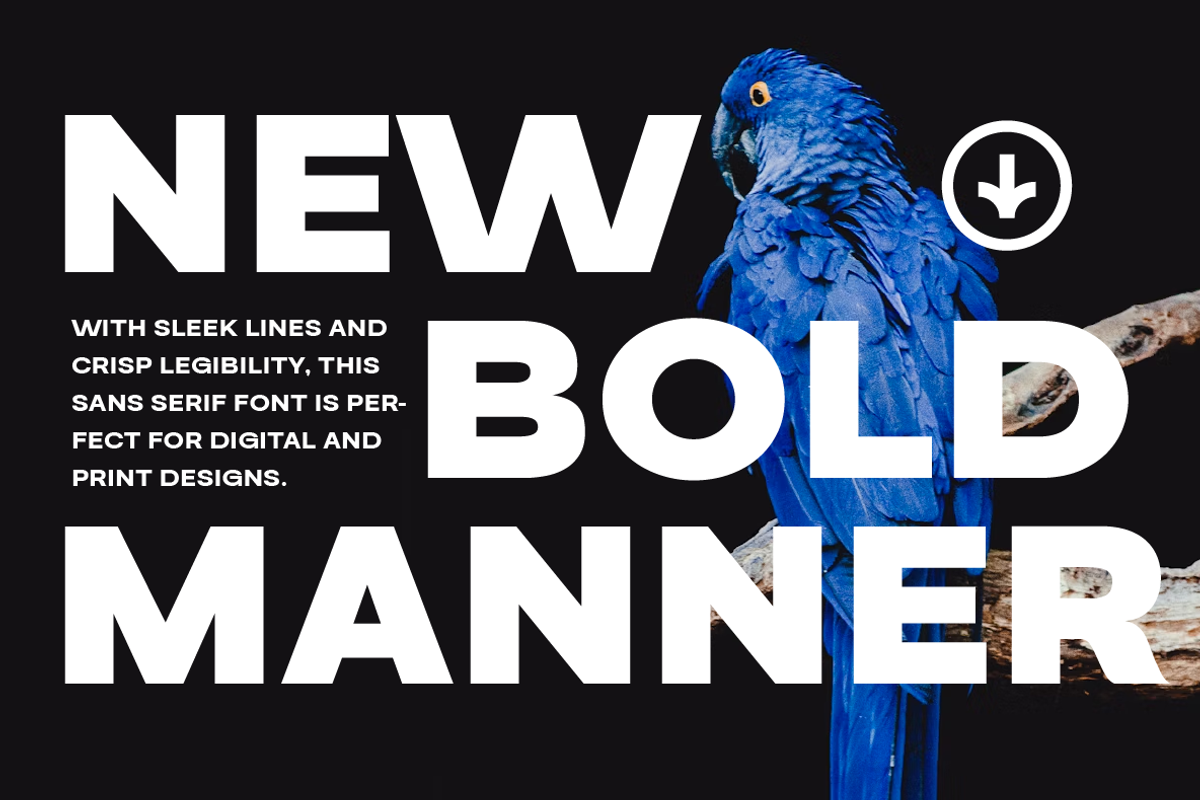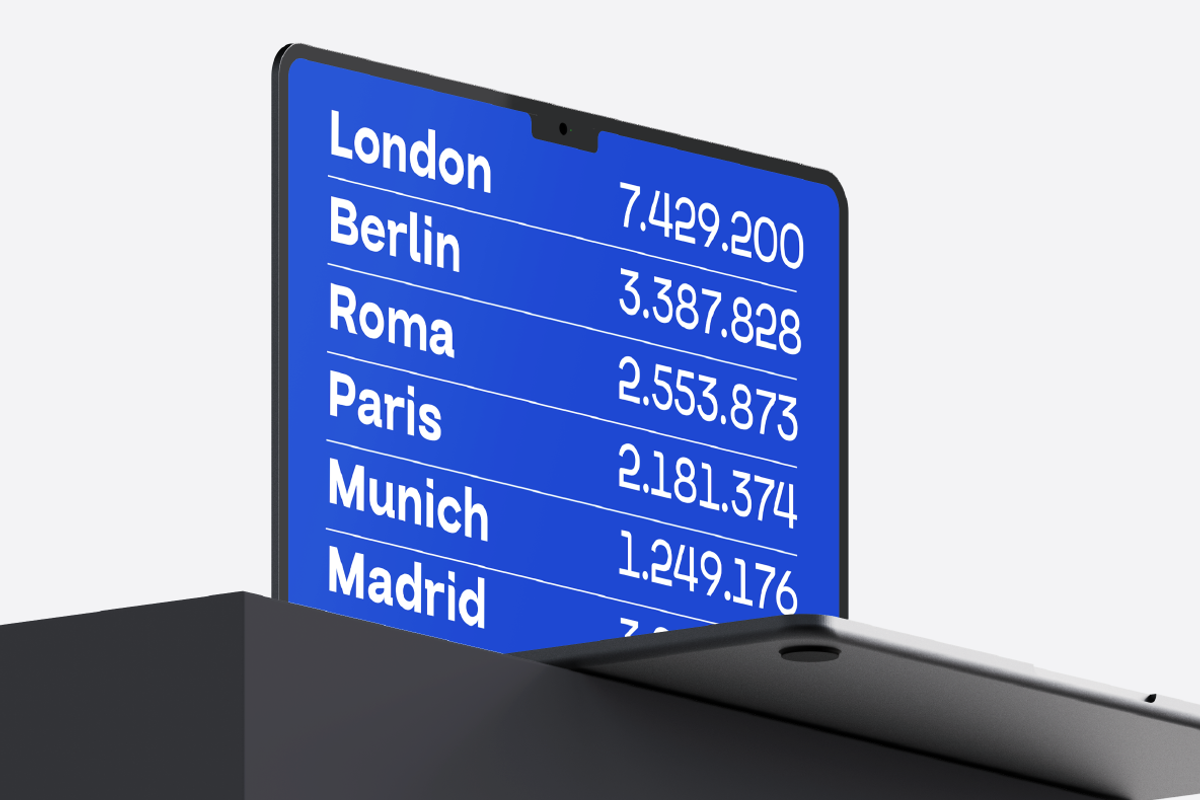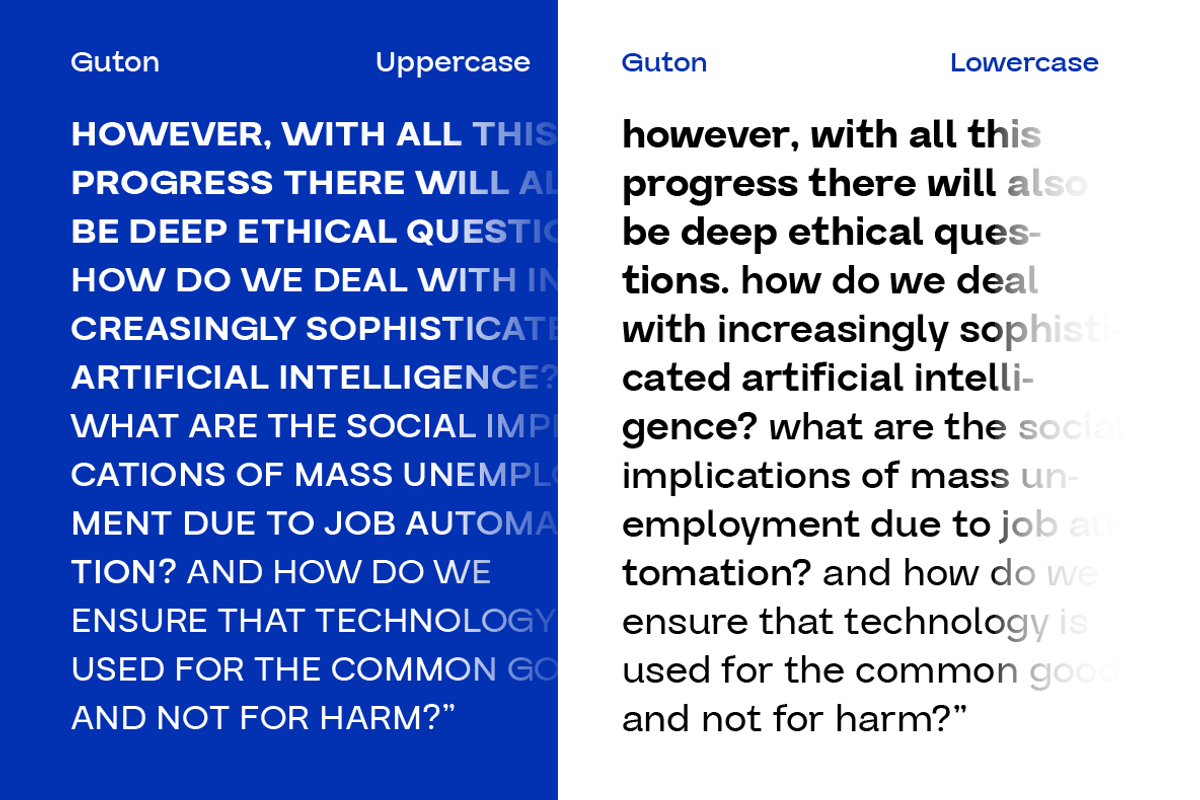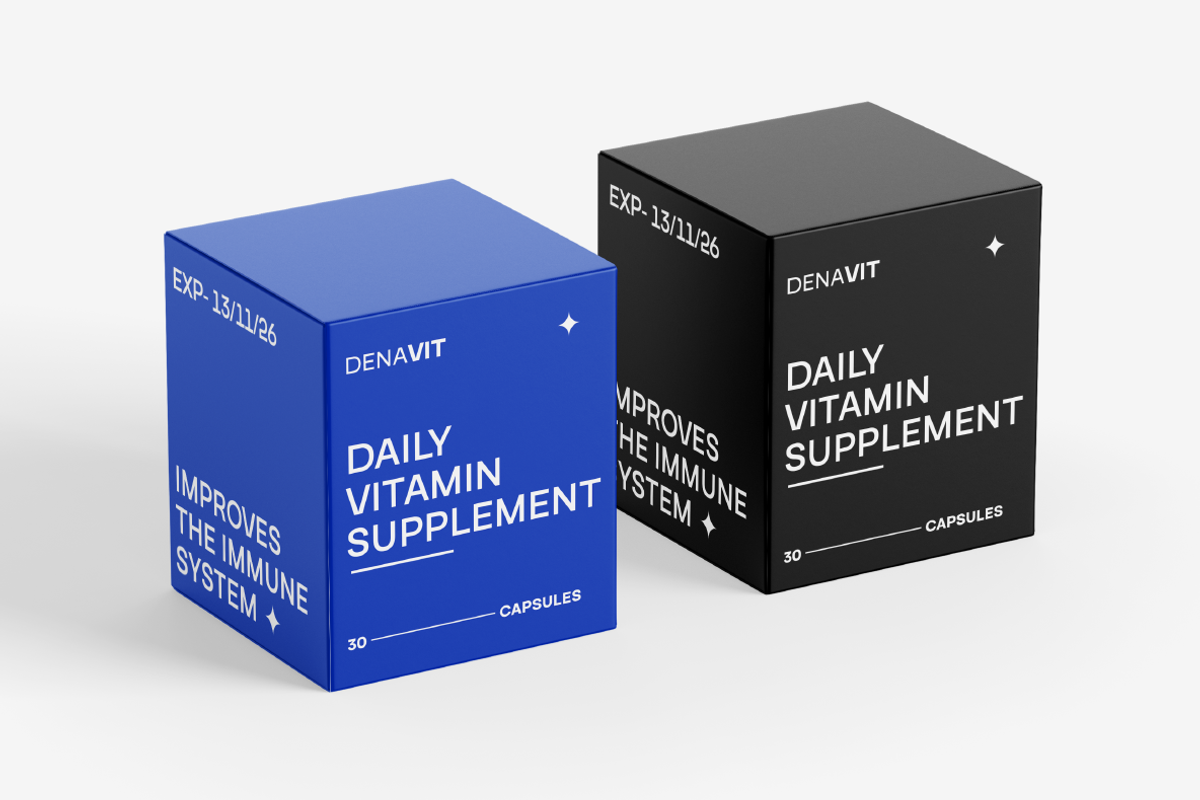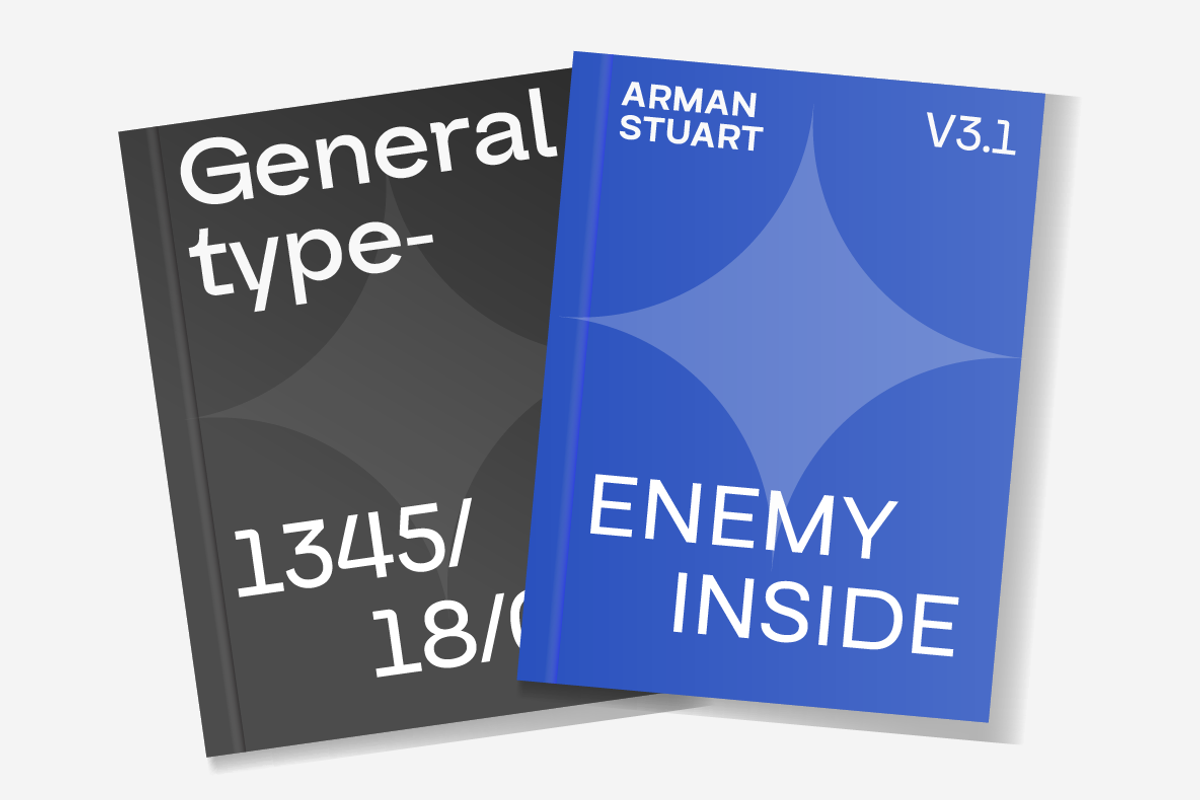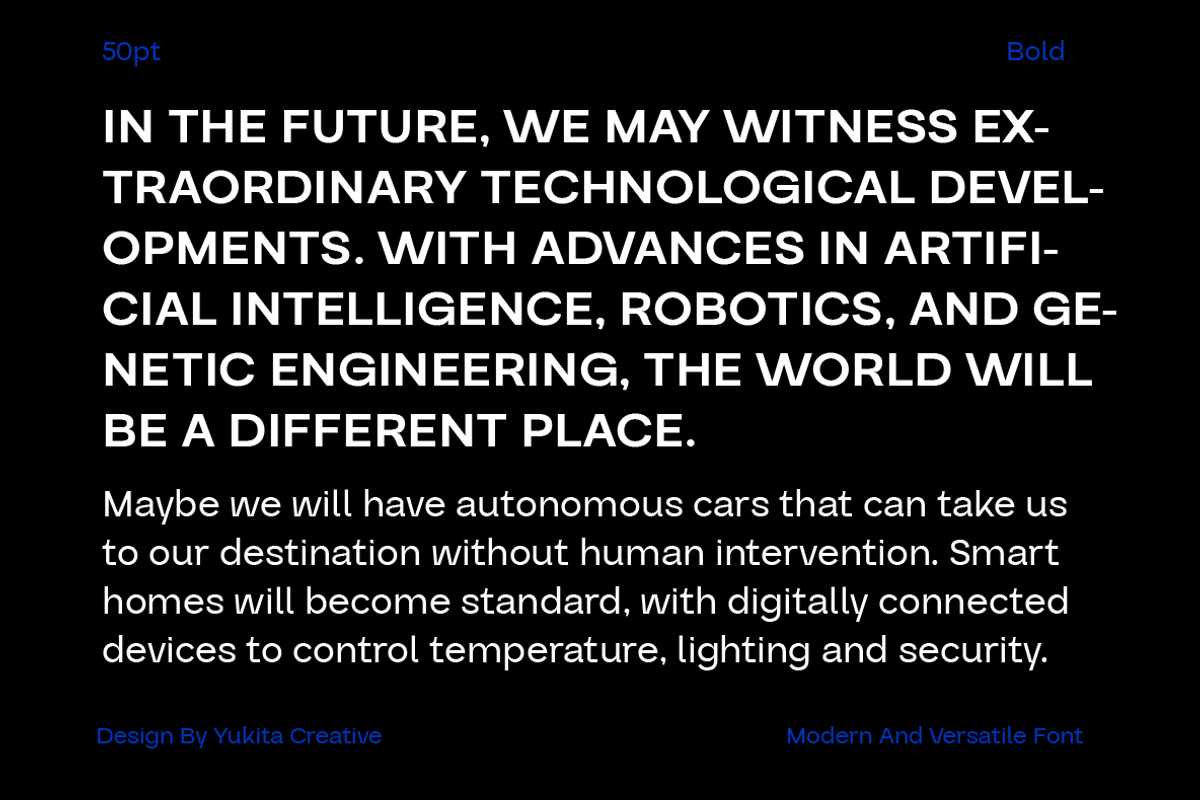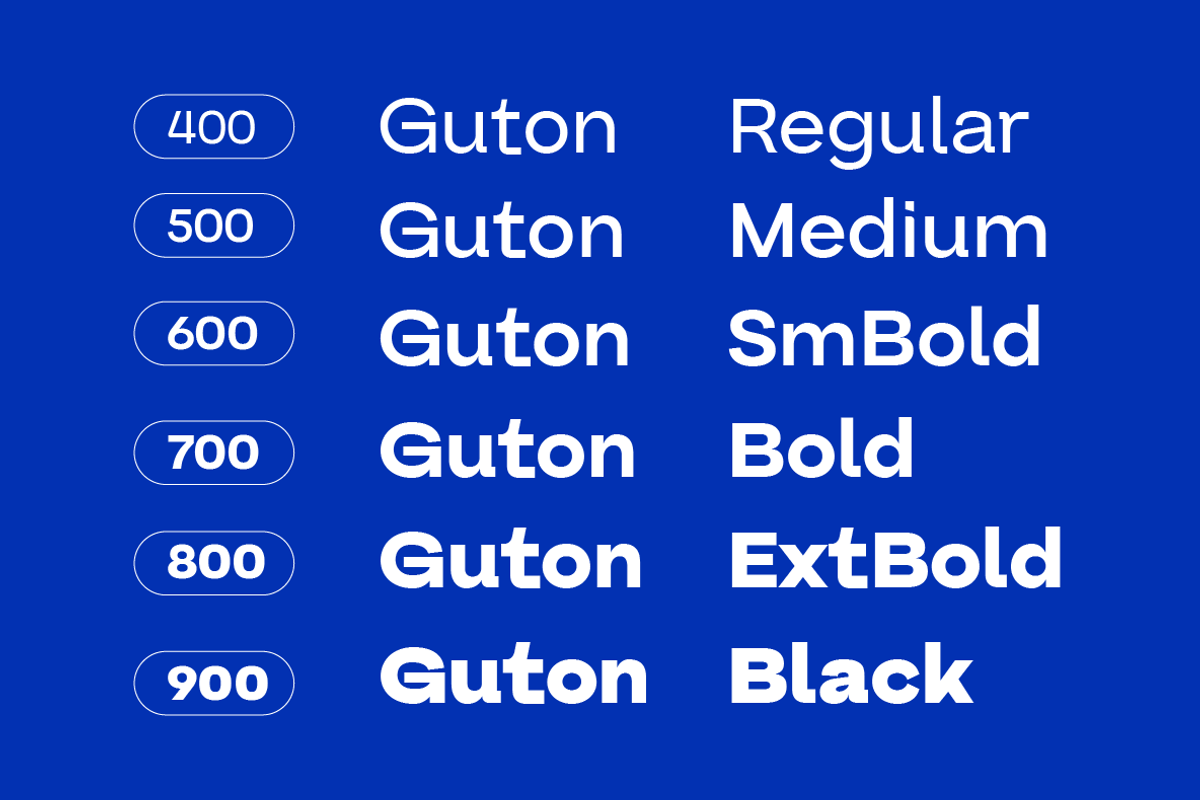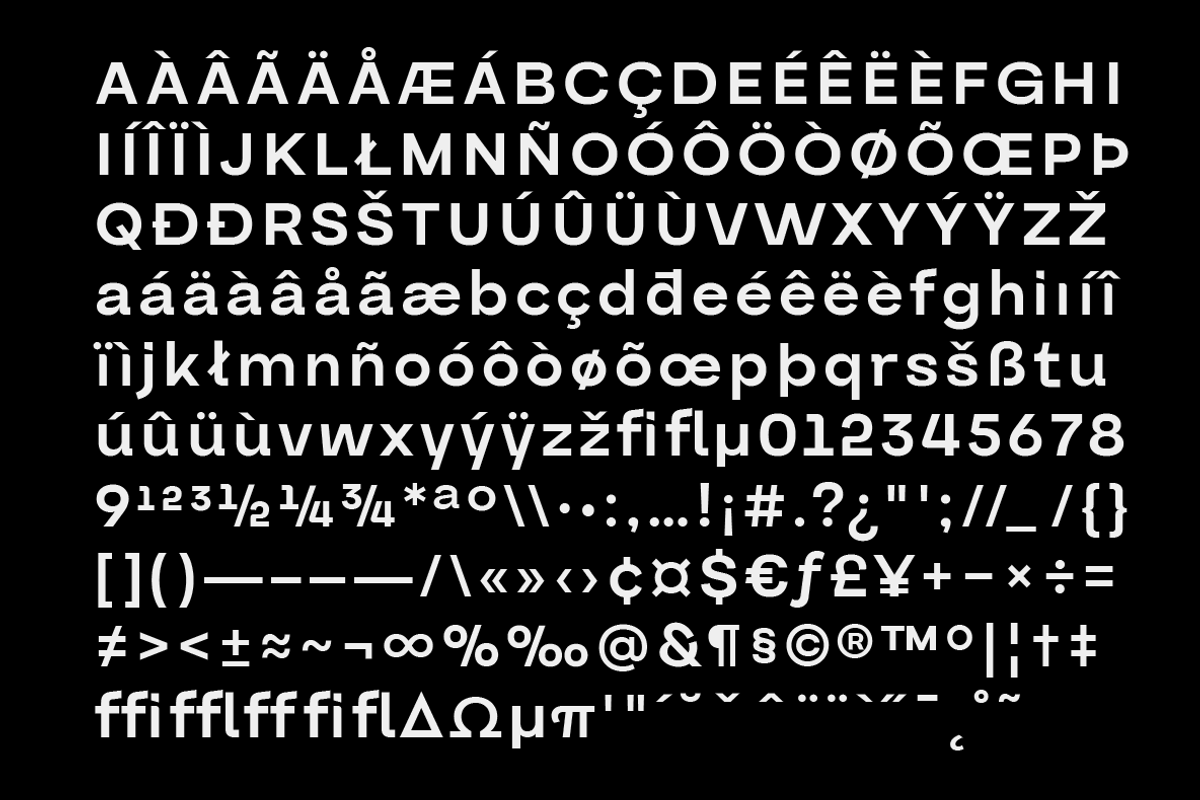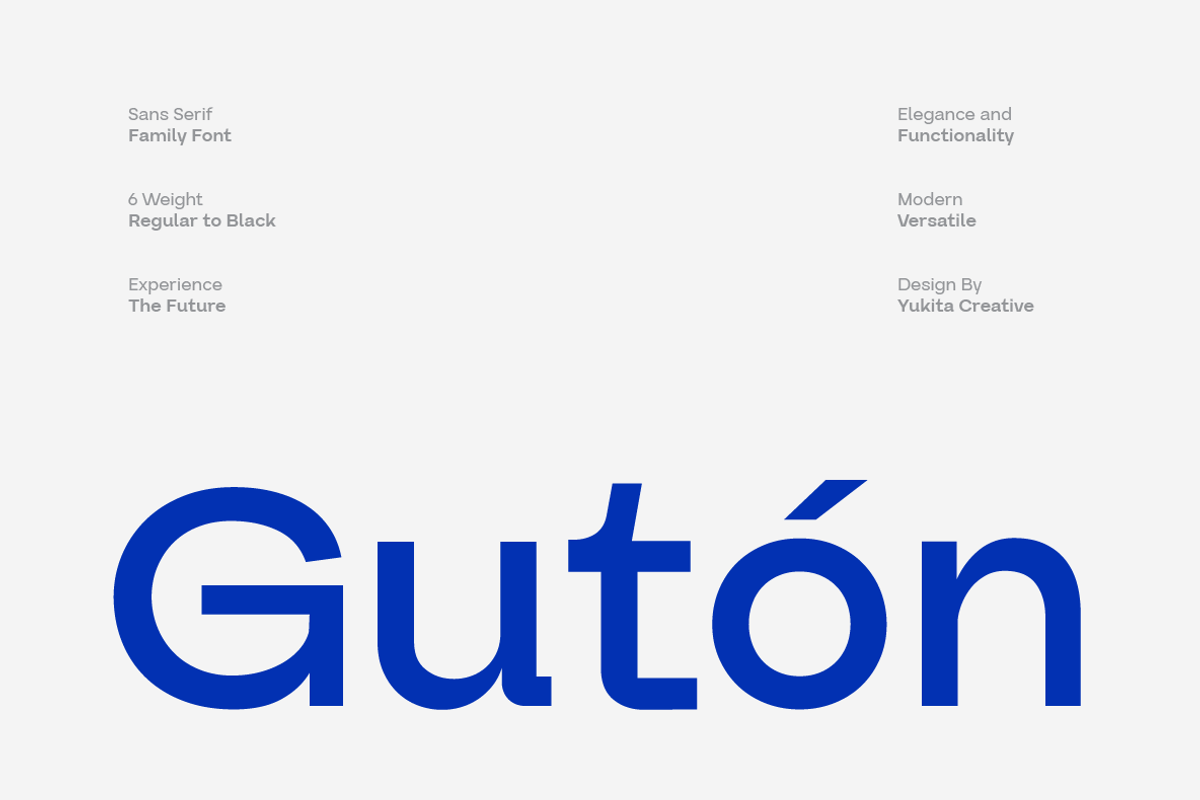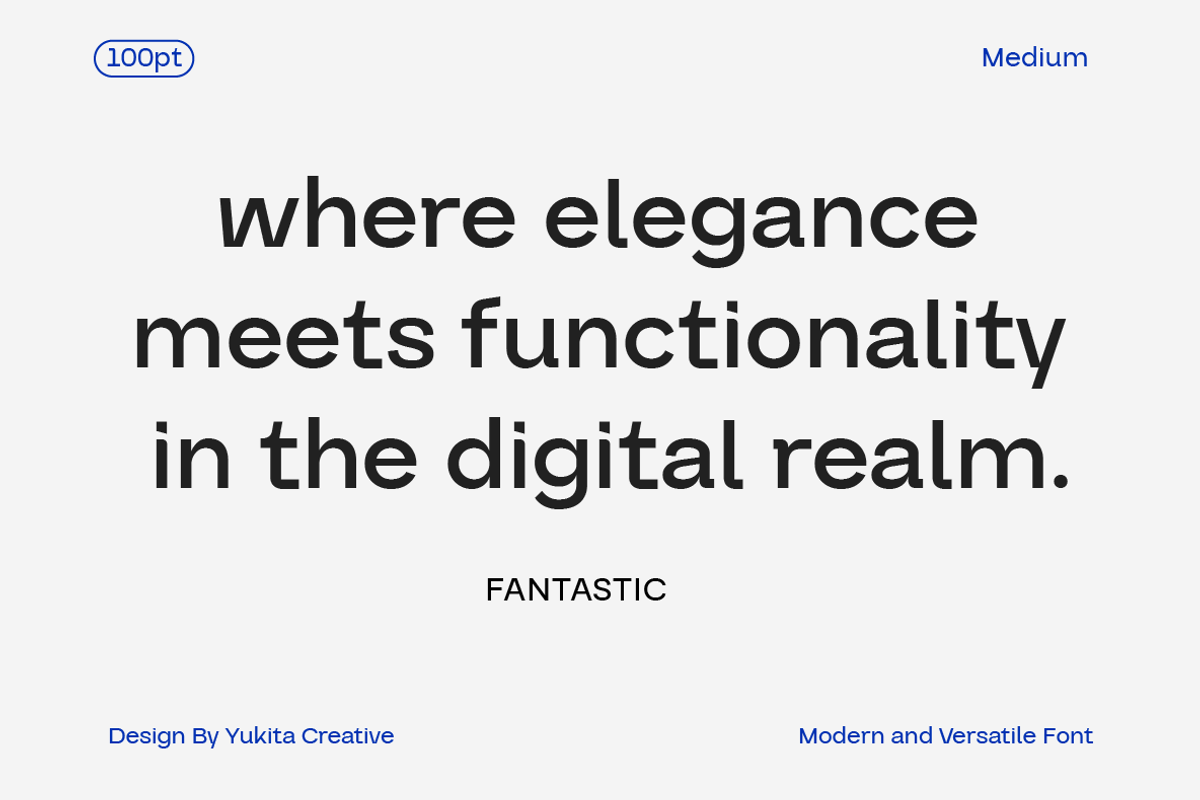
Guton Sans Serif Family
Guton Sans Serif Font Family offers six different weights, ranging from Regular to Black, bringing clarity and boldness to every design. With clean lines and balanced proportions, this font is suitable for printed materials and web designs. Heavy Black lends a strong, authoritative feel to the stunning title. Flexible and professional, Guton is the best choice for designers pursuing quality and style.
With superior design quality and unmatched flexibility, Guton Sans Serif Font Family is an inevitable choice for designers who pursue quality and style in each of their typography projects.